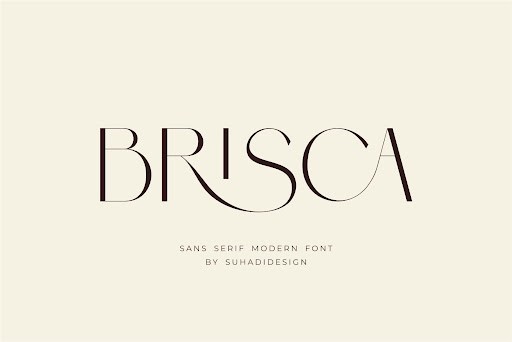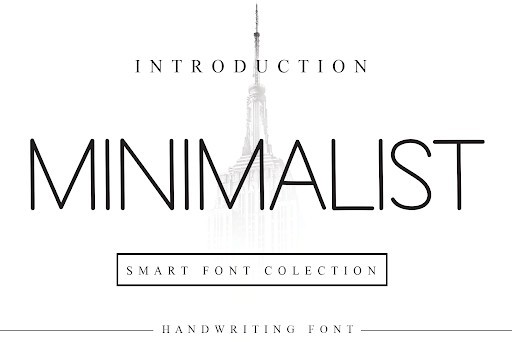
33 Ultimate Sans Serif Fonts to Elevate Your Designs in 2026
Typography is the backbone of any stellar design, and finding the perfect sans serif font can completely transform your creative projects. As we navigate the design trends of 2026, modern aesthetics demand clean lines, superb readability, and versatile characteristics. Whether you are working on a massive branding overhaul, an editorial piece, or a sleek new website, this curated collection of the top 33 sans serif typefaces has everything you need to captivate your audience.
1. Brisca Font by suhadidesign
Brisca Font by suhadidesign
Stepping into 2026, the Brisca Font by suhadidesign is an absolute must-have for modern design projects. This versatile sans serif typeface offers clean lines and a highly readable structure that instantly elevates any digital or print media. Its subtle geometric influences give it a unique, contemporary edge that stands out without overwhelming the viewer.
Whether you are designing a sleek website UI, crafting a corporate brand identity, or laying out editorial content, Brisca provides the perfect balance of professionalism and creative flair. Fully equipped with a commercial license, it is ready for all your high-stakes design endeavors.
2. Minimalist Font by Roronoa zoro.S.P.D
Minimalist Font
If you are looking for pure simplicity in 2026, the Minimalist Font by Roronoa zoro.S.P.D delivers an exceptionally clean sans serif experience. By stripping away all unnecessary embellishments, this font provides a highly functional and modern aesthetic that aligns perfectly with current minimalist design trends.
This typeface thrives in spaces where clarity is paramount, such as minimalist logos, luxury branding, and sleek mobile applications. Its unpretentious yet elegant character ensures your message is delivered effortlessly, while the included commercial license guarantees worry-free usage.
3. Mango Dream Font by C Studio
Mango Dream Font
The Mango Dream Font by C Studio introduces a refreshing and vibrant personality to the world of sans serif typography in 2026. This dynamic typeface features smooth curves and a highly legible form that effortlessly bridges the gap between playful creativity and professional structure.
Perfect for packaging design, lively marketing campaigns, and engaging social media graphics, Mango Dream breathes life into your visual content. Designed for broad compatibility across Windows, Mac, and Linux, it serves as a robust tool for any creative agency.
4. Designer Font by Minimalist Eyes
Designer Font
Living up to its name, the Designer Font by Minimalist Eyes is a premium sans serif typeface crafted specifically for high-end creative work in 2026. Its meticulous proportions and crisp letterforms reflect a deep understanding of typographic hierarchy, making it a favorite among professional art directors.
This font is an exceptional choice for editorial spreads, high-fashion branding, and sophisticated web typography. With its seamless legibility and included commercial license, it empowers creators to build stunning, memorable designs.
5. Mocca Font by Aqeel_Art
Mocca Font
Mocca Font by Aqeel_Art is a beautifully balanced sans serif that brings warmth and clarity to modern designs in 2026. With slightly rounded edges and a friendly demeanor, it softens the typical rigidity of geometric sans fonts while maintaining impeccable readability.
This typeface is particularly well-suited for lifestyle blogs, cafe branding, and approachable corporate identities. Its versatility across different platforms ensures that your typography remains sharp and inviting, no matter the medium.
6. Solen Font by Pasha Larin
Solen Font
For those seeking a bold yet refined aesthetic in 2026, the Solen Font by Pasha Larin is an outstanding candidate. This sans serif typeface features striking letter shapes that command attention, making it perfect for impactful headlines and strong brand messaging.
Beyond its visual appeal, Solen is engineered for maximum readability, ensuring that your text remains clear even at smaller sizes. Whether you are developing a tech startup identity or a modern magazine layout, this font delivers uncompromising quality.
7. Blonden Font by craftsupplyco
Blonden Font
The Blonden Font by craftsupplyco continues to be a staple for designers looking for a sophisticated sans serif in 2026. It seamlessly blends modern geometric principles with a touch of classic elegance, resulting in a typeface that feels both fresh and timeless.
Its clean appearance makes it incredibly adaptable, suitable for everything from luxurious cosmetic packaging to sleek architectural portfolios. Complete with a commercial license, Blonden is ready to elevate your most ambitious projects.
Selecting the right sans serif font can dramatically influence the success of your creative projects in 2026. The 33 typefaces listed above represent the absolute pinnacle of modern typography, offering unparalleled versatility, readability, and style. Upgrade your design arsenal today and ensure your typography remains ahead of the curve.